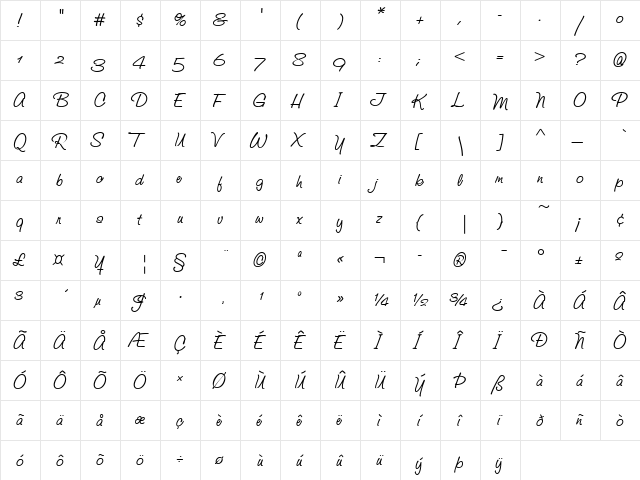
Studio Script Alternative ITC Regular
Design Context for Studio Script Alternative ITC Typeface
Studio Script Alternative ITC brings a calligraphic fluidity to the page — its connecting strokes and expressive curves give it an unmistakably human quality.
Font Pairing: Combine Studio Script Alternative ITC with a simple geometric sans for maximum contrast — the tension between flowing curves and clean structure is a classic typographic pairing.
Pro Tip: Use Studio Script Alternative ITC for short runs of text — names, titles, or taglines. Extended body copy in script faces tires the eye quickly.